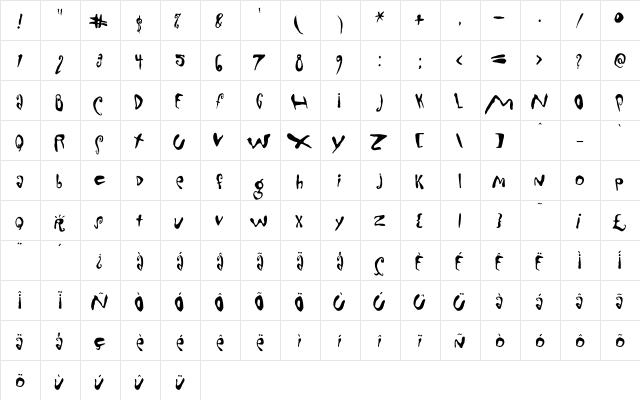
Mondo Loose
Design Context for Mondo Typeface
Mondo is a composed and adaptable typeface that performs quietly and consistently across a wide range of design contexts.